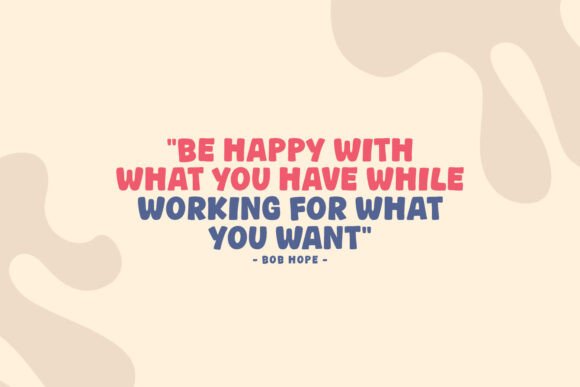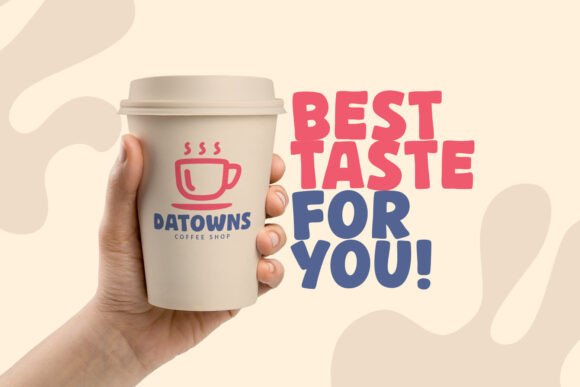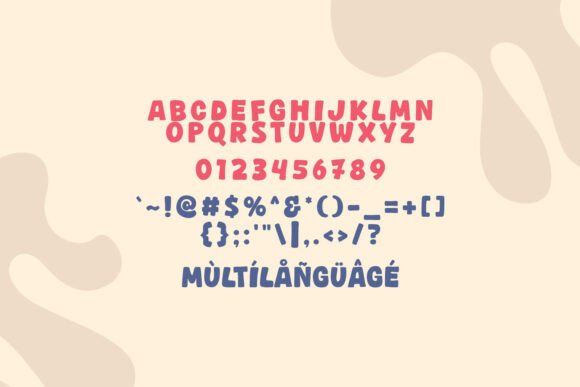
Introducing Extra Beige Font: The Perfect Addition to Your Design Arsenal
Are you a designer or crafter looking for a font that can elevate your creative projects to the next level? Look no further than Extra Beige Font, a modern and adorable display font that’s perfect for a wide range of applications. From posters and logos to magazines, book covers, and banners, Extra Beige Font is the ideal choice for anyone looking to add a touch of elegance and sophistication to their designs.
What Makes Extra Beige Font So Special?
Extra Beige Font is a versatile and highly adaptable font that’s designed to make your designs stand out from the crowd. Its unique blend of modernity and cuteness makes it perfect for a wide range of projects, from playful and whimsical to serious and professional. Whether you’re creating a logo, poster, or book cover, Extra Beige Font is sure to make a lasting impression.
Key Features of Extra Beige Font
- Modern and Cute Design: Extra Beige Font boasts a fresh and contemporary design that’s sure to appeal to designers and crafters of all levels.
- Highly Versatile: This font is perfect for a wide range of projects, including posters, logos, magazines, book covers, banners, and more.
- Easy to Use: Extra Beige Font is incredibly easy to use, making it perfect for designers and crafters of all skill levels.
- Large Character Set: This font includes a large character set, ensuring that you have everything you need to create stunning designs.
How to Use Extra Beige Font in Your Designs
- Create a Stunning Logo: Use Extra Beige Font to create a unique and memorable logo that’s sure to make your brand stand out.
- Design a Beautiful Poster: Add a touch of elegance to your posters with Extra Beige Font, perfect for advertising, events, or promotions.
- Elevate Your Book Cover: Use Extra Beige Font to create a stunning book cover that’s sure to grab the attention of potential readers.
- Make a Statement with Banners: Create eye-catching banners with Extra Beige Font, perfect for events, sales, or promotions.
Why Choose Extra Beige Font?
So why choose Extra Beige Font over other fonts on the market? Here are just a few reasons:
- Unique Design: Extra Beige Font boasts a unique and modern design that’s sure to make your designs stand out.
- Highly Versatile: This font is perfect for a wide range of projects, making it a valuable addition to your design arsenal.
- Easy to Use: Extra Beige Font is incredibly easy to use, making it perfect for designers and crafters of all skill levels.
- Exceptional Value: With its wide range of uses and highly adaptable design, Extra Beige Font offers exceptional value for designers and crafters.
In conclusion, Extra Beige Font is a modern and adorable display font that’s perfect for designers and crafters looking to elevate their creative projects. With its unique design, highly versatile nature, and ease of use, Extra Beige Font is sure to become a valuable addition to your design arsenal. So why wait? Download Extra Beige Font today and start creating stunning designs that are sure to impress!